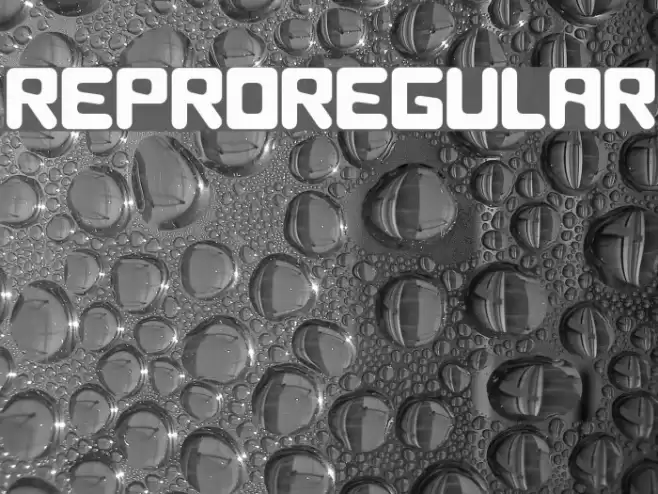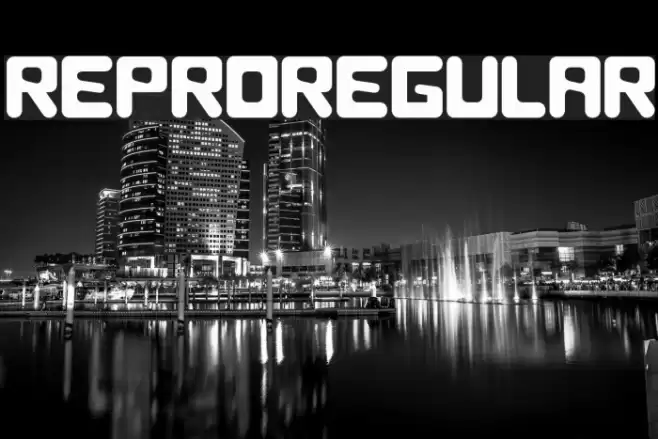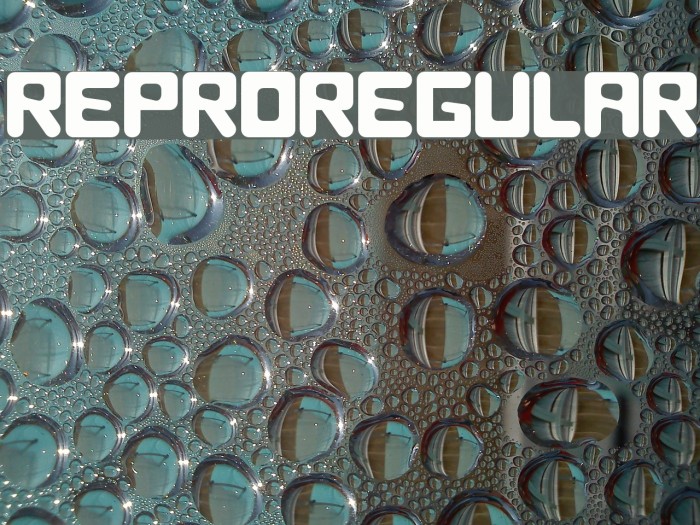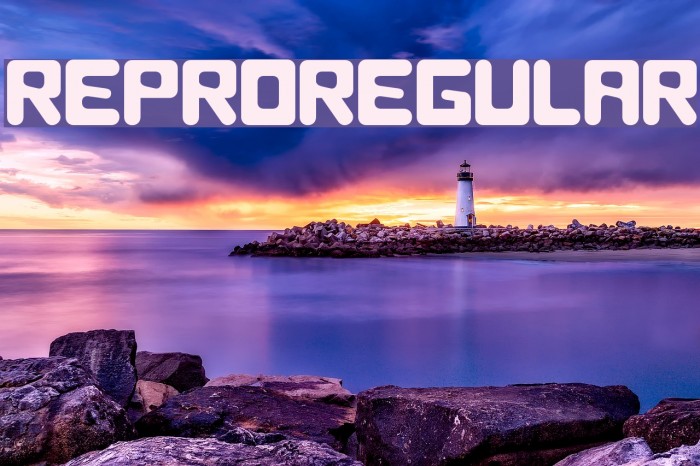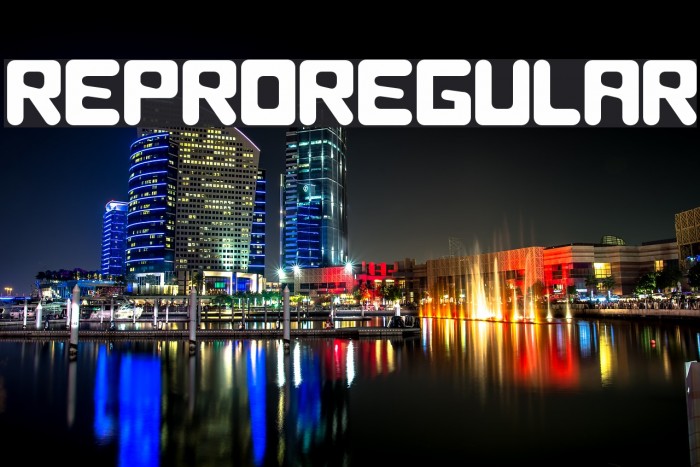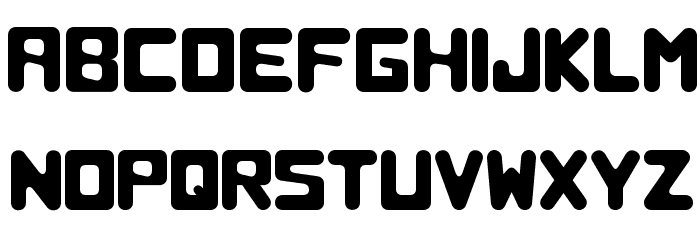
Repro89-Regular Font
Repro89-Regular Description
This font features bold, rounded characters with a modern and playful aesthetic. The letters are uniformly thick, giving them a strong presence on the page. The rounded edges soften the overall look, making it approachable and friendly. The uniformity in stroke width across all characters provides a cohesive and balanced appearance. The font is highly legible, even at smaller sizes, due to its clear and distinct letterforms. It is well-suited for digital and print media, offering versatility in various design contexts.
A bold, rounded font with a modern and playful style from Uncategorized fonts.
- Proposed Projects: Ideal for branding, headlines, posters, and digital media where a strong, friendly presence is desired.